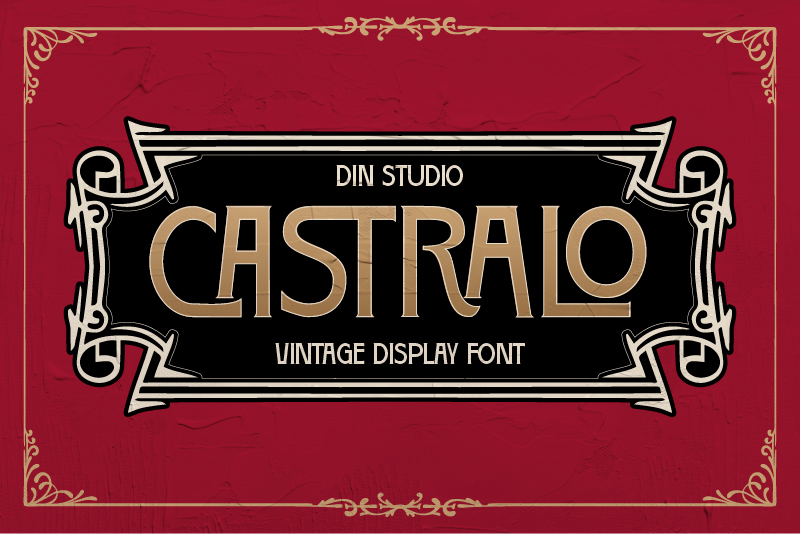
Introducing Castralo, a striking display font that blends vintage style with a modern edge. Crafted in all uppercase letters, Castralo shows a balanced weight that’s not too thick, making it perfect for designs that need a bold yet refined touch. The font’s sturdy and consistent sizing give it a solid and reliable feel, while maintaining excellent readability. As extra. Castralo gives ornaments. In addition, enjoy the features here.
- Stylistic Sets
- Multilingual Supports
Castralo fits in headlines, logos, posters, branding materials, packaging, print media, editorial layouts, and many more designs. Find out more ways to use this font by taking a look at the font preview.